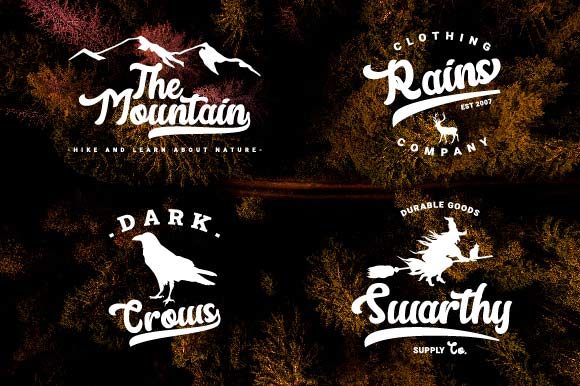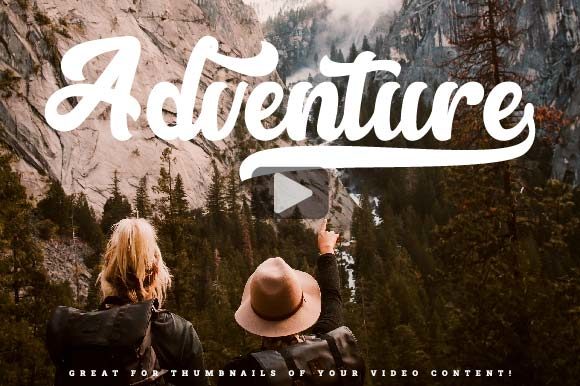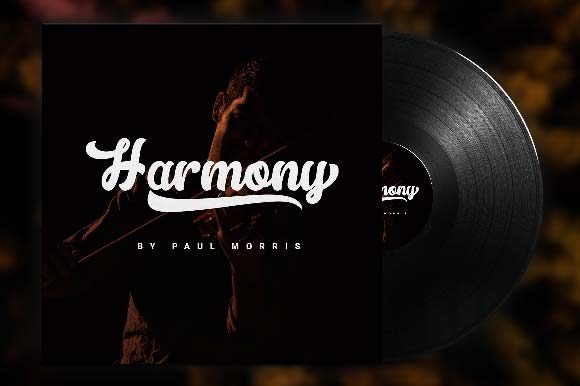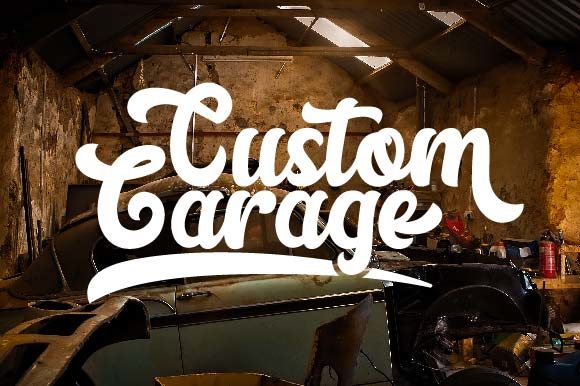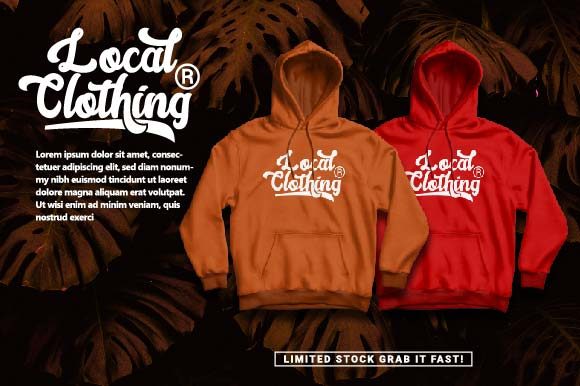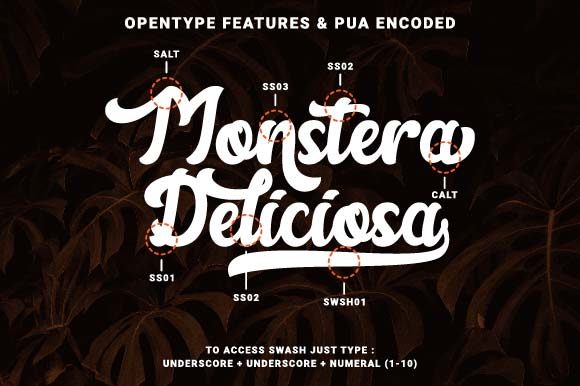
The Perfect Blend of Style and Confidence: Arkaedos Font
There’s something magical about seeing your design come to life, and that moment when you know you’ve nailed it is pure bliss. For designers, it’s a rush of excitement and pride. But what makes that moment even sweeter is when you get to use the perfect tool to bring your vision to life. That’s where the Arkaedos Font comes in – a beautiful and bold handwritten font that’s sure to give your headlines and logotype projects a stylish touch.
With Arkaedos Font, you can create strong, confident, and dynamic designs that leave a lasting impression. Whether you’re working on a branding project, a marketing campaign, or a creative portfolio, this font is a valuable addition to your design toolkit. Its unique blend of style and confidence makes it an essential tool for designers looking to elevate their work and make a statement.
Key Features of Arkaedos Font
- Font Family: Arkaedos Font is a high-quality, professional font designed for various applications, including logos, headings, and body text.
- Unique Characteristics: Arkaedos Font features a unique blend of modern and ancient elements, with intricate details and ornaments that add a touch of elegance and sophistication.
Arkaedos Font Review
Overall, I think the Arkaedos font is an interesting choice for designers. There are some aspects that I really enjoy, and some that I find limiting.
- Unique aesthetic: Arkaedos has a distinct, futuristic feel that can add a touch of personality to digital products.
- High-resolution support: The font is optimized for high-resolution displays, making it a great choice for modern designs.
- Extensive character set: Arkaedos includes a wide range of characters, including Cyrillic and Greek scripts.
- Readability issues: Some characters, particularly those with complex strokes, can be difficult to read at small font sizes.
- Lack of ligatures: While Arkaedos has a unique aesthetic, it lacks the ligatures that can enhance readability and professionalism in certain contexts.
While Arkaedos is an intriguing choice, I think its limitations may outweigh its benefits for most designers. However, if you’re looking for a font that can add a touch of futurism to your designs, it’s worth considering.
Getting the Most Out of Arkaedos Font
To get the most out of the Arkaedos font, experiment with different font sizes, colors, and combinations with other fonts. Use the font for headings and titles to add visual hierarchy and emphasis to your designs. You can also use the font for body text to create a cohesive and unique look.
The Arkaedos font is ideal for creative projects, such as graphic design, typography, and branding. It’s also suitable for digital projects, such as web design, mobile apps, and video games. Additionally, the font can be used for print projects, such as brochures, flyers, and posters.